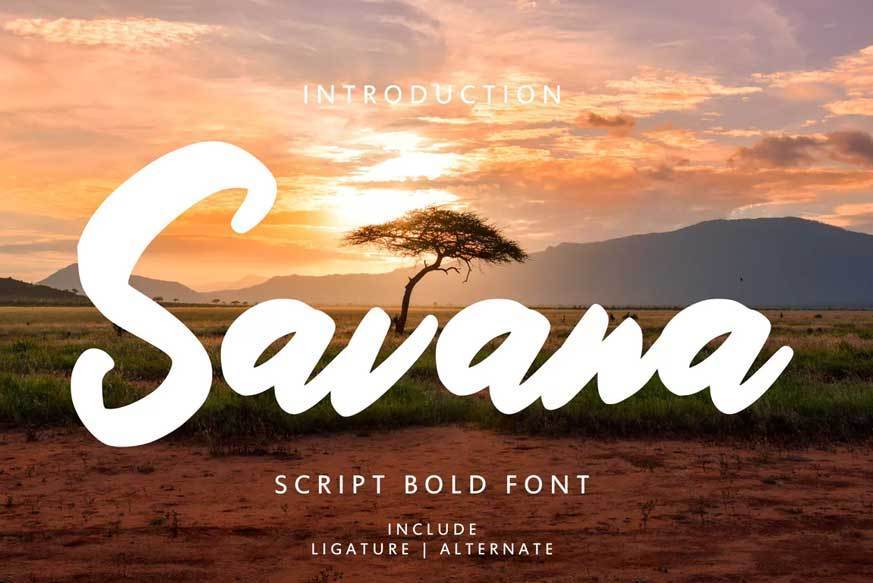
Savana Script Bold Font
Savana – Script Bold Font with a calligraphy style, So beautiful on invitation like greeting cards, branding materials, business cards, quotes, posters, and more!